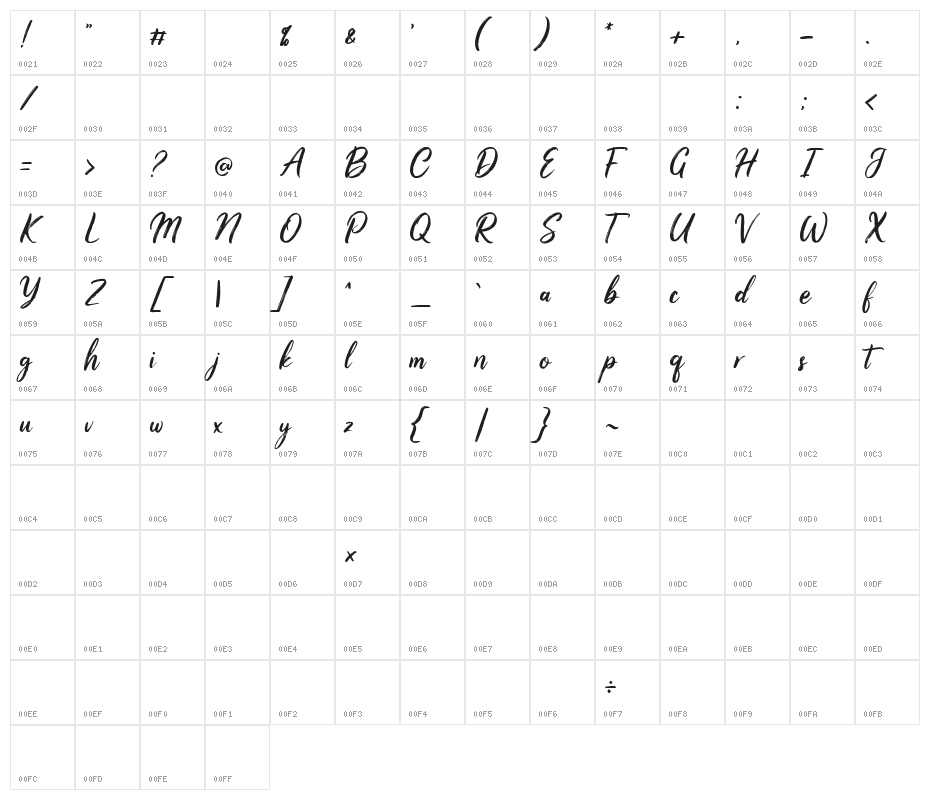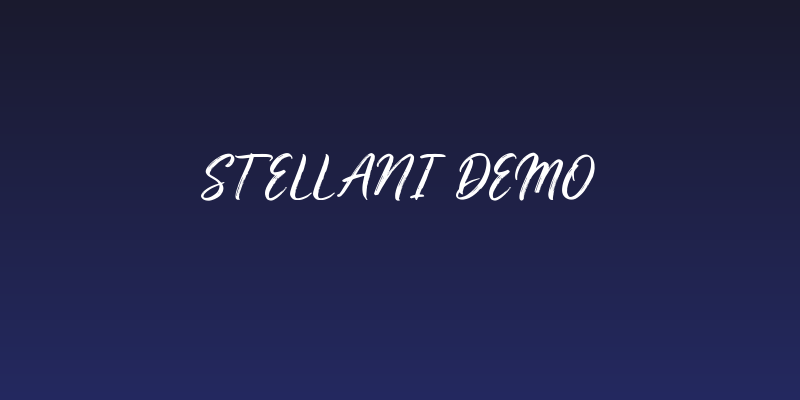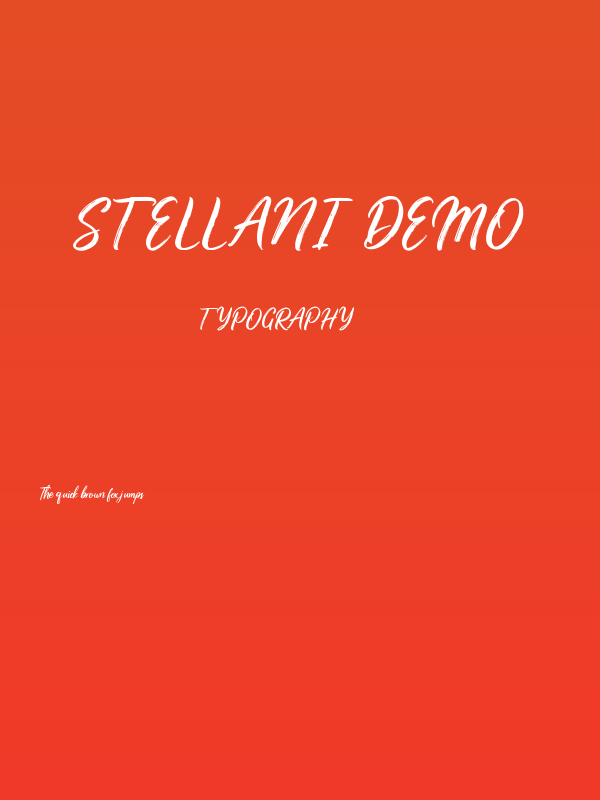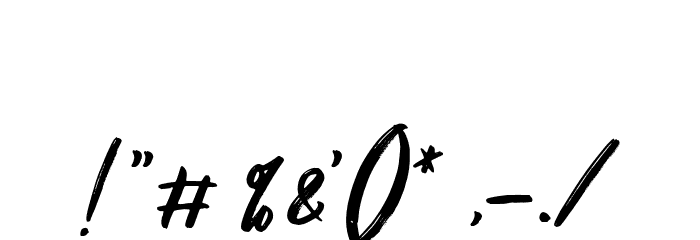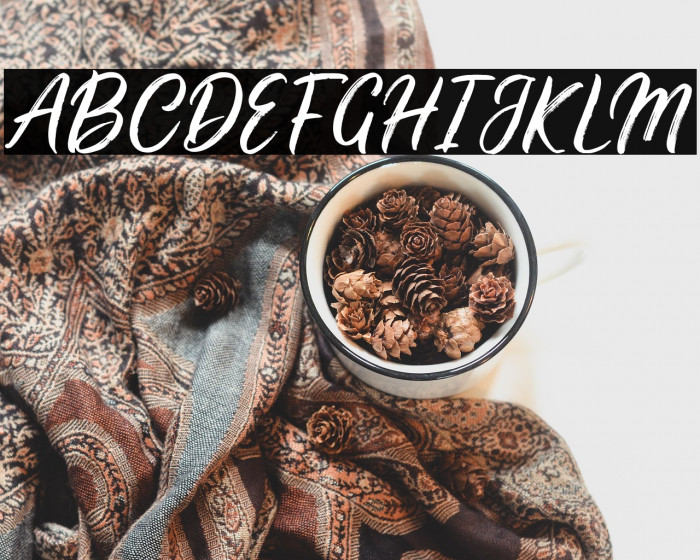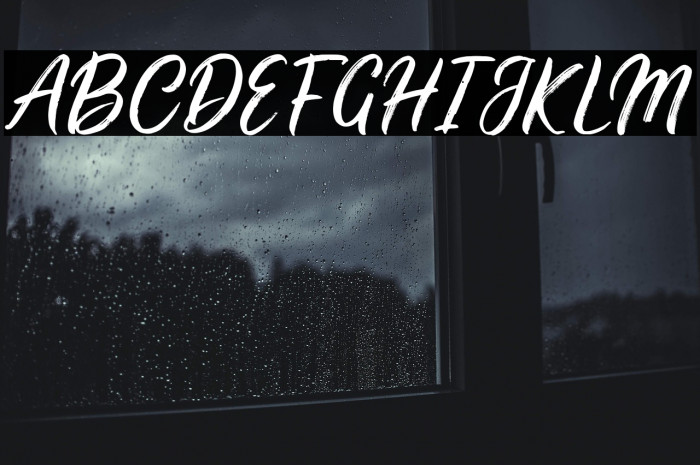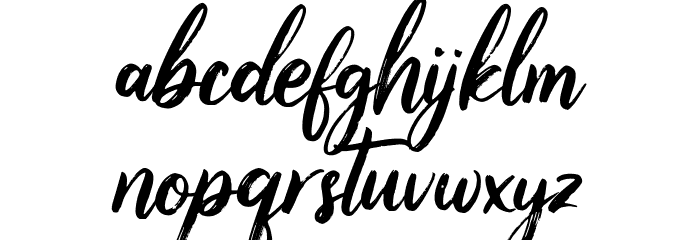
Stellani Demo Font
Stellani Demo Description
This font exudes a dynamic and energetic feel with its bold, brush-like strokes and fluid, cursive style. The characters are crafted with a sense of motion, giving a lively and expressive appearance. The uppercase letters are slightly more structured, while the lowercase letters flow with a natural, handwritten quality. The overall design is both artistic and legible, making it suitable for creative projects. The special characters maintain the same energetic style, ensuring consistency across all elements.